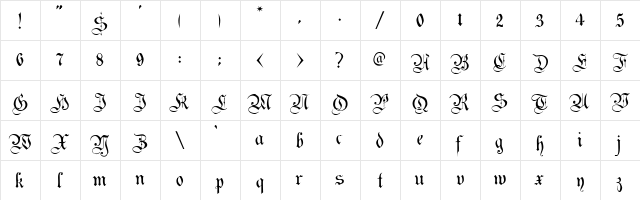
Magdeburg Regular
Design Context for Magdeburg Typeface
Magdeburg is a composed and adaptable typeface that performs quietly and consistently across a wide range of design contexts.